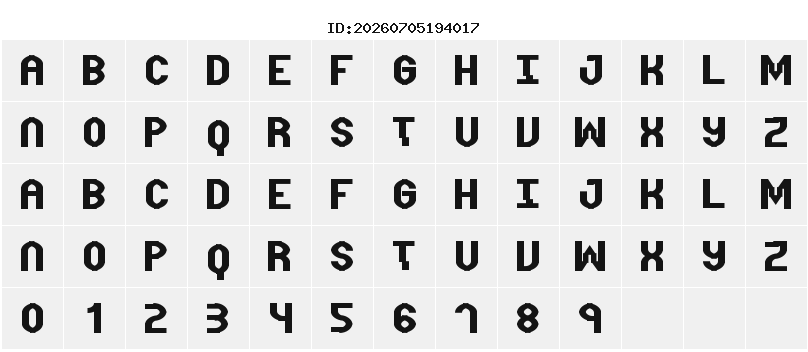
Distortion Preview
• Font Name: Distortion
• Font ID: FontStruct Distortion
• Full Font Name: Distortion Regular
• PostScript Name: Distortion
• Designer: GeronimoFonts
• Description: ‚ÄúDistortion‚Äù was built with FontStruct ‚ÄúDistortion‚Äù is based on ‚ÄúPenguin‚Äù by ‚ÄúGeronimoFonts‚Äù (http://fontstruct.com/fontstructors/geronimofonts)
About Distortion.ttf
Distortion.ttf is a modern, elegant sans-serif font designed for ultimate readability and visual harmony. Perfect for branding, headlines, web design, and print materials.